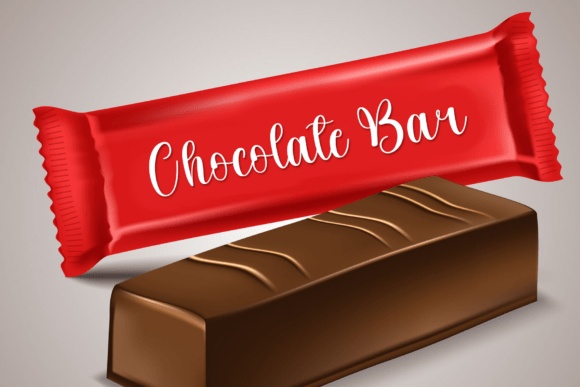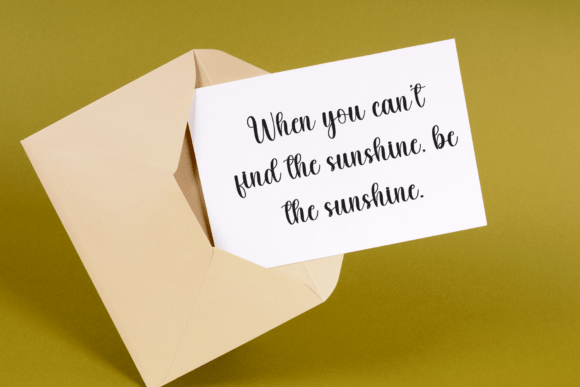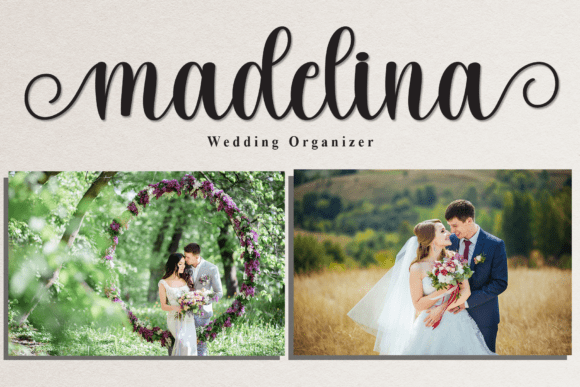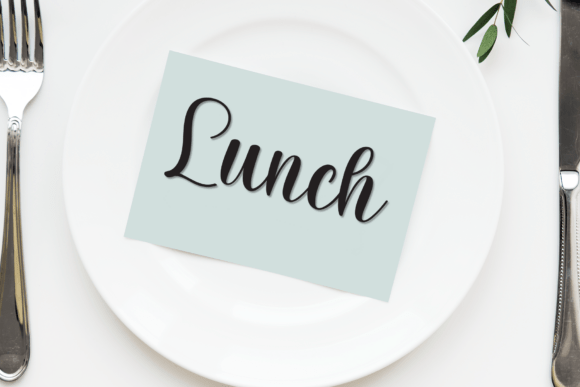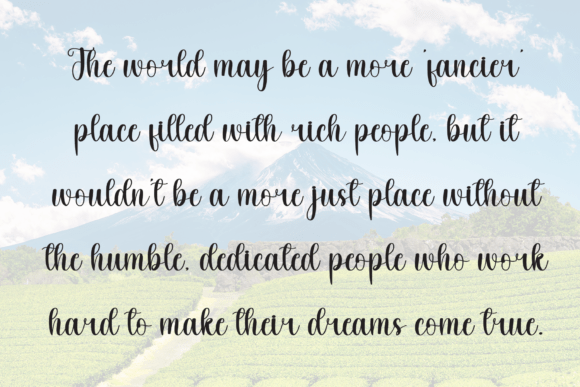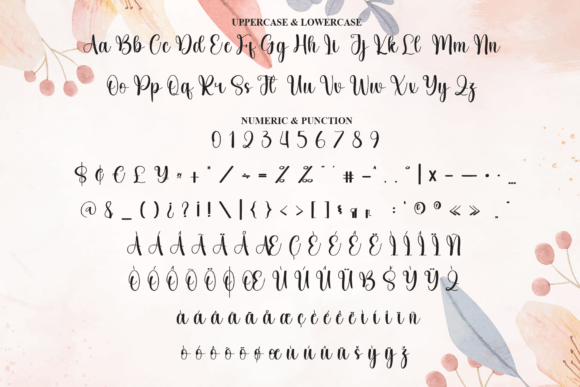
Introducing Autism Font: Elevate Your Designs with Elegance and Sophistication
In the world of typography, fonts play a crucial role in conveying the tone and personality of a brand or design. For designers and crafters seeking to add a touch of elegance and modern charm to their work, the Autism Font is an exceptional choice. This stylish script font is designed to bring a sense of refinement and sophistication to various design projects, from logos and invitations to packaging and social media graphics.
The Beauty of Autism Font
Autism Font is a masterfully crafted script font that captures the essence of hand-drawn calligraphy with a modern twist. Its design features graceful strokes, fluid curves, and carefully crafted letterforms that work harmoniously to create a visually stunning effect. The font’s natural flow and polished details make it an excellent choice for designers looking to add a touch of luxury and sophistication to their work.
Key Features of Autism Font
- Elegant and Modern Design: Autism Font boasts a stylish and contemporary design that is sure to elevate any project.
- Graceful Strokes and Fluid Curves: The font’s carefully crafted letterforms feature smooth, flowing curves that give it a natural and refined look.
- Versatile and Adaptable: Autism Font is suitable for a wide range of design projects, including logos, invitations, packaging, and social media graphics.
- Polished Details: The font’s attention to detail ensures that it delivers a high level of visual appeal and sophistication.
Uses of Autism Font
Autism Font’s versatility makes it an excellent choice for various design applications. Here are some of the ways you can use this elegant font:
- Logos and Branding: Create a lasting impression with a custom logo that exudes elegance and sophistication.
- Invitations and Event Materials: Add a touch of refinement to your event invitations, programs, and other materials.
- Packaging Design: Elevate your product packaging with a font that conveys luxury and sophistication.
- Social Media Graphics: Create engaging social media graphics that stand out with Autism Font’s unique and stylish design.
Why Choose Autism Font?
With so many fonts available, why choose Autism Font for your design projects? Here are a few compelling reasons:
- Unique and Stylish Design: Autism Font offers a distinctive and modern design that sets it apart from other fonts.
- High-Quality Typography: The font is crafted with attention to detail, ensuring a high level of visual appeal and legibility.
- Ease of Use: Autism Font is easy to integrate into your design projects, making it a convenient choice for designers and crafters.
Autism Font is an exceptional choice for designers and crafters seeking to add a touch of elegance and sophistication to their work. With its stylish script design, graceful strokes, and fluid curves, this font is sure to elevate any design project. Whether you’re creating logos, invitations, packaging, or social media graphics, Autism Font delivers both versatility and visual appeal. Make a lasting impression with this refined and sophisticated font – ideal for those who appreciate the beauty of modern calligraphy.